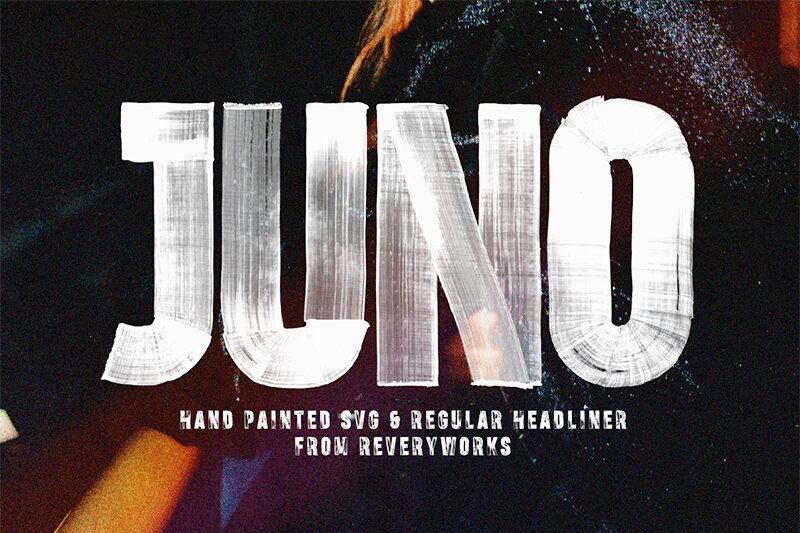
Juno, a bold and condensed display font crafted by Maryam Kamal of ReveryWorks, exudes a captivating sense of weathered resilience. The eroded aesthetic imbues this typeface with a rugged charm, emanating a raw, industrial vibe that commands attention. Juno's condensed width lends a sense of strength and determination, while the bold strokes convey a powerful presence, making it an impactful choice for various design applications.
This versatile font can elevate a wide range of projects, from eye-catching headlines and impactful logos to dynamic branding materials and gritty editorial layouts. Juno's distinctive character ensures it stands out, making it a compelling option for designers seeking to imbue their creations with a bold, memorable aesthetic.